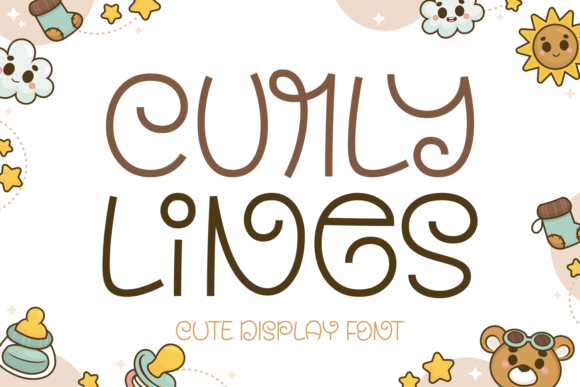
Curly Lines Font: Adding a Touch of Whimsy to Your Designs
In the world of typography, fonts play a crucial role in conveying the tone and personality of a design. Whether you’re working on a creative project, crafting a marketing campaign, or simply expressing yourself through digital art, the right font can make all the difference. Introducing “Curly Lines” – a cute and whimsical font that adds a touch of playfulness to your designs. With its charming curls and lively letterforms, Curly Lines is perfect for projects that require a sweet and friendly aesthetic.
The Charm of Curly Lines
Curly Lines is a unique font that stands out from the crowd with its distinctive curly elements. Each letterform is carefully crafted to incorporate playful curls that add a touch of whimsy to your text. The font’s design is inspired by the joy of hand-drawn typography, bringing a sense of warmth and personality to your designs. Whether you’re creating greeting cards, children’s book covers, or any other creative project, Curly Lines is sure to bring a smile to your audience’s faces.
Perfect for Playful Projects
Curly Lines is particularly well-suited for projects that require a playful and friendly aesthetic. Its lively letterforms and charming curls make it an excellent choice for:
- Greeting cards: Add a personal touch to your cards with Curly Lines’ whimsical design.
- Children’s book covers: Create a captivating cover that will appeal to young readers.
- Digital art: Bring a touch of playfulness to your artwork with Curly Lines’ unique font style.
- Marketing campaigns: Add a friendly and approachable tone to your marketing materials.
Key Features of Curly Lines
So, what makes Curly Lines so special? Here are some of the key features that set this font apart:
- Unique curls: Each letterform features charming curls that add a touch of whimsy to your text.
- Lively letterforms: The font’s letterforms are designed to be playful and fun, making it perfect for creative projects.
- Sweet and friendly aesthetic: Curly Lines is designed to bring a sense of warmth and personality to your designs.
Tips for Using Curly Lines
To get the most out of Curly Lines, here are some tips to keep in mind:
- Use it sparingly: While Curly Lines is a beautiful font, it’s best used in moderation. Use it to highlight key text or add a touch of whimsy to your design.
- Pair it with other fonts: Experiment with pairing Curly Lines with other fonts to create a unique and visually appealing design.
- Adjust the size: Play around with different font sizes to find the perfect balance for your design.
The Benefits of Using Curly Lines
So, why choose Curly Lines for your design projects? Here are some of the benefits of using this charming font:
- Adds a touch of personality: Curly Lines brings a sense of warmth and personality to your designs, making them more engaging and relatable.
- Creates a playful aesthetic: The font’s playful design creates a fun and lively aesthetic that’s perfect for creative projects.
- Easy to read: Despite its playful design, Curly Lines is easy to read, making it perfect for body text and headings.
In conclusion, Curly Lines is a charming and whimsical font that’s perfect for adding a touch of playfulness to your designs. With its unique curls and lively letterforms, this font is sure to bring a smile to your audience’s faces. Whether you’re working on a creative project, crafting a marketing campaign, or simply expressing yourself through digital art, Curly Lines is an excellent choice. So why not give it a try and see how it can elevate your designs?
Here are some frequently asked questions about Curly Lines:
- What type of projects is Curly Lines best suited for? Curly Lines is perfect for projects that require a playful and friendly aesthetic, such as greeting cards, children’s book covers, and digital art.